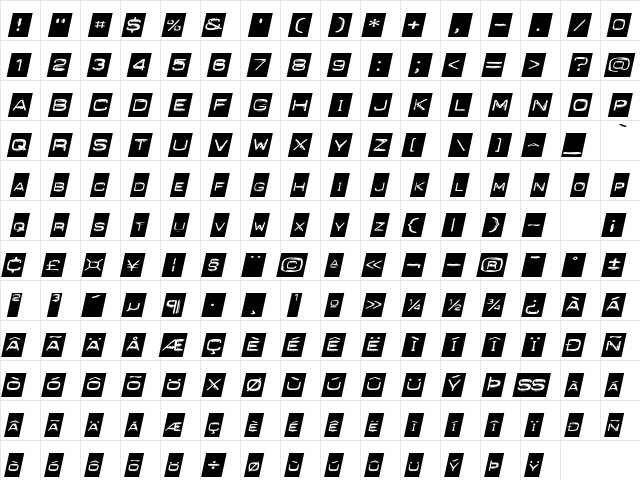
PunchLabelExtended Italic
Design Context for PunchLabelExtended Typeface
PunchLabelExtended takes a measured approach to typography — its balanced proportions and neutral character make it a reliable workhorse for both digital and print work. Its italic angle brings a sense of urgency and motion to the letterforms.
Pro Tip: Try PunchLabelExtended for annotation and caption copy alongside an upright companion — the contrast in angle creates a dynamic but ordered typographic system.